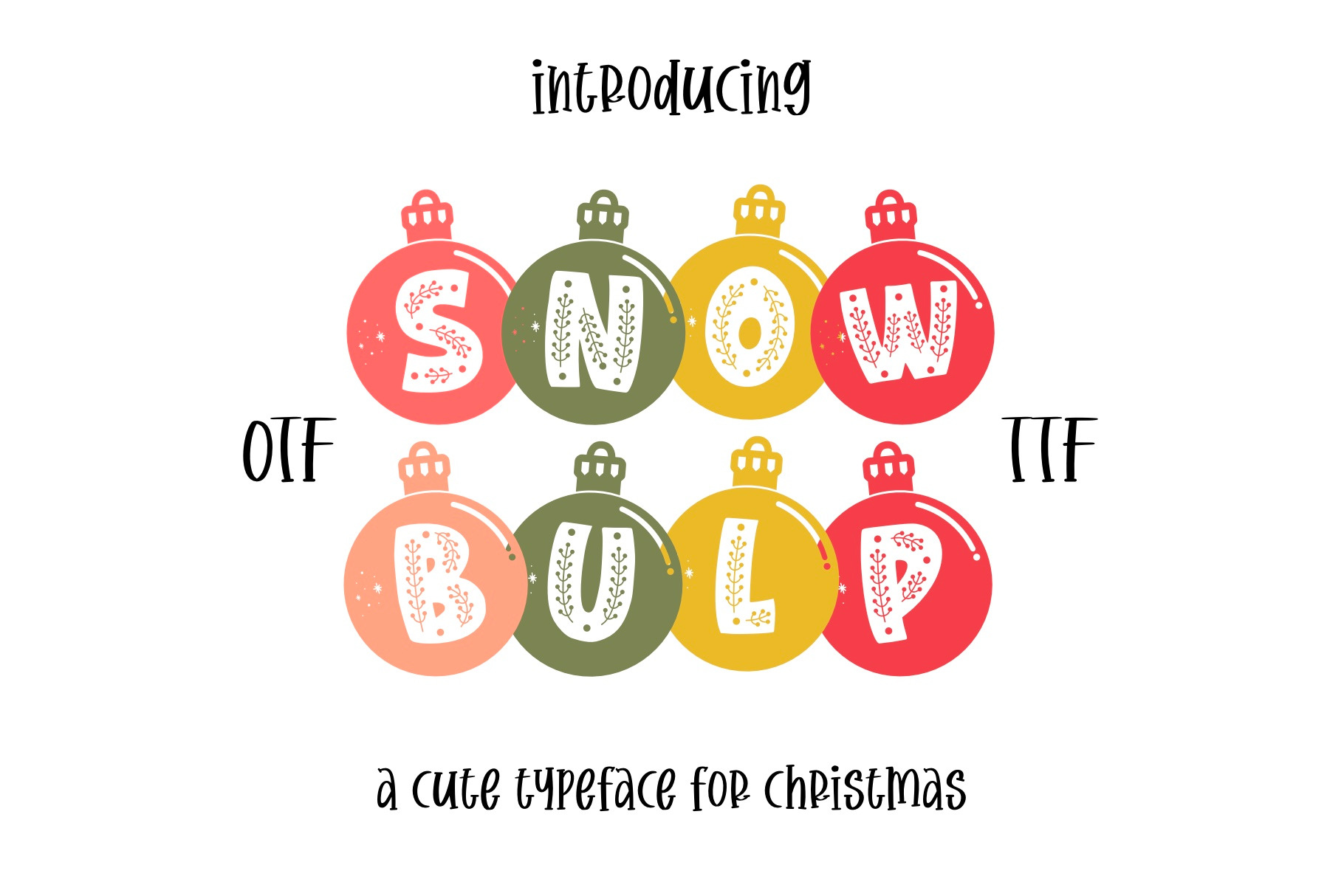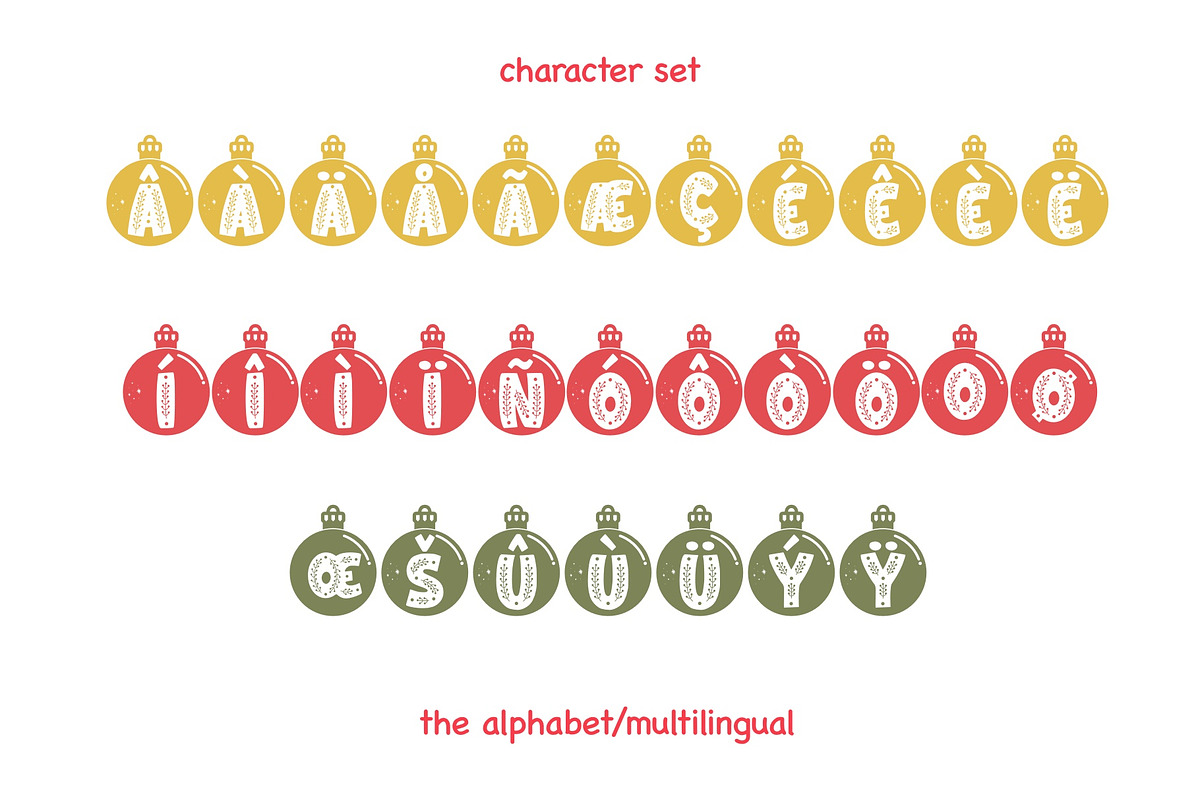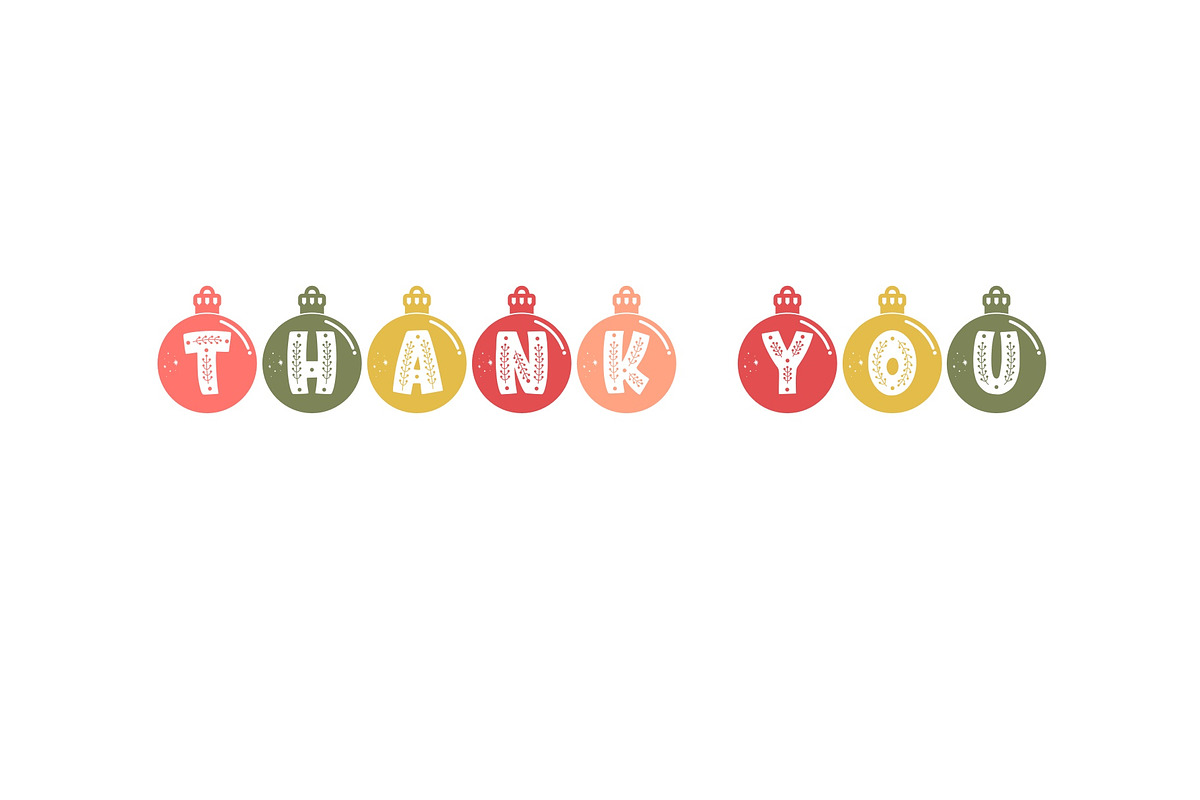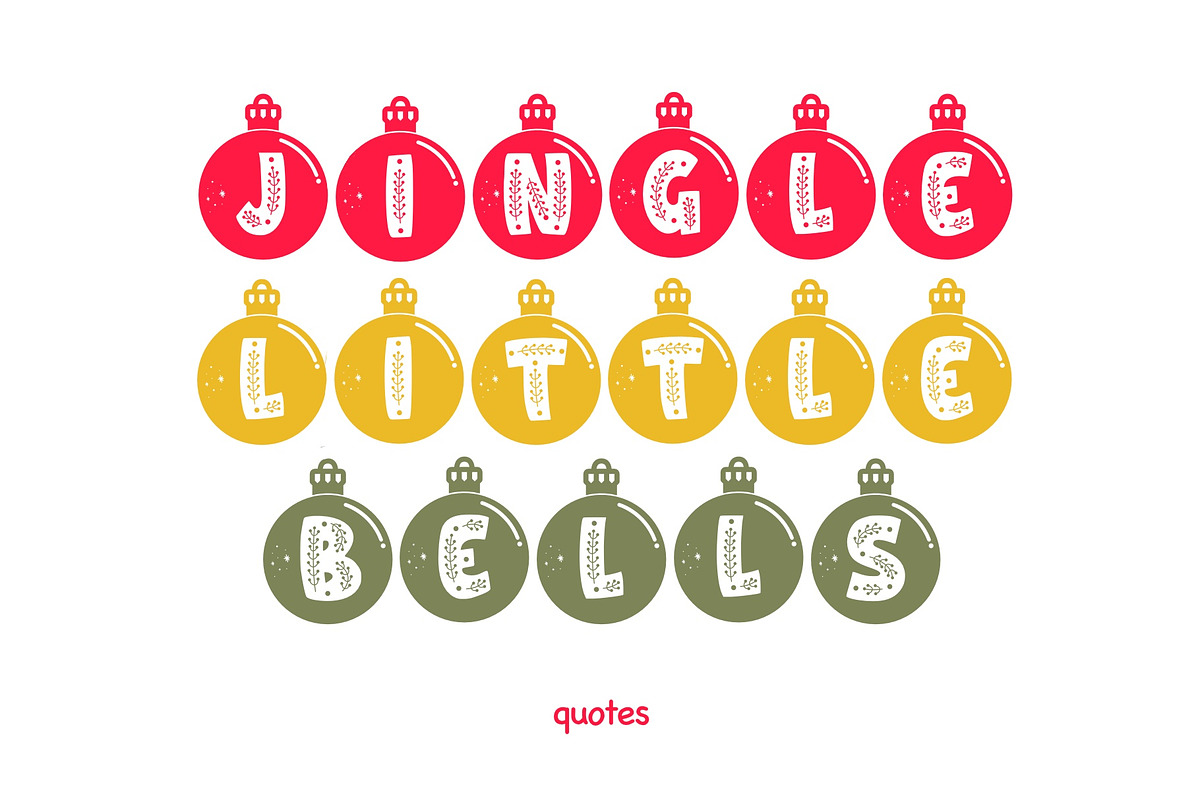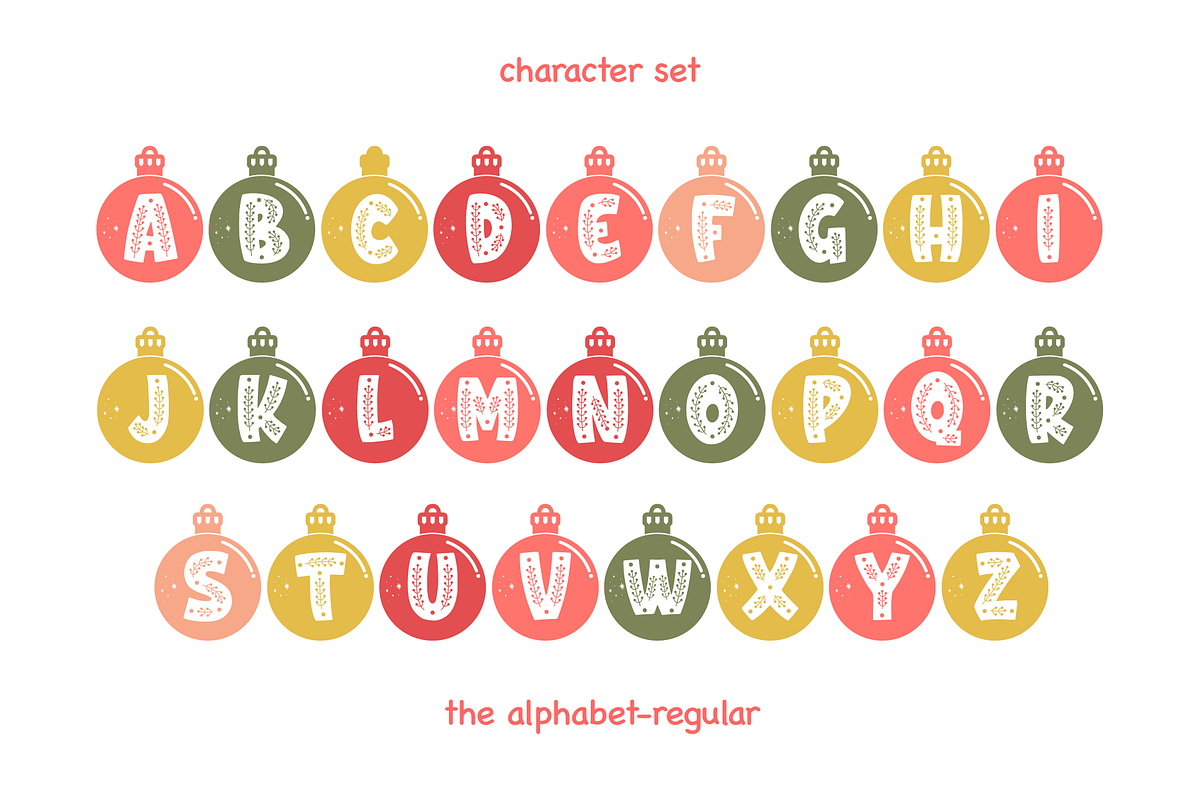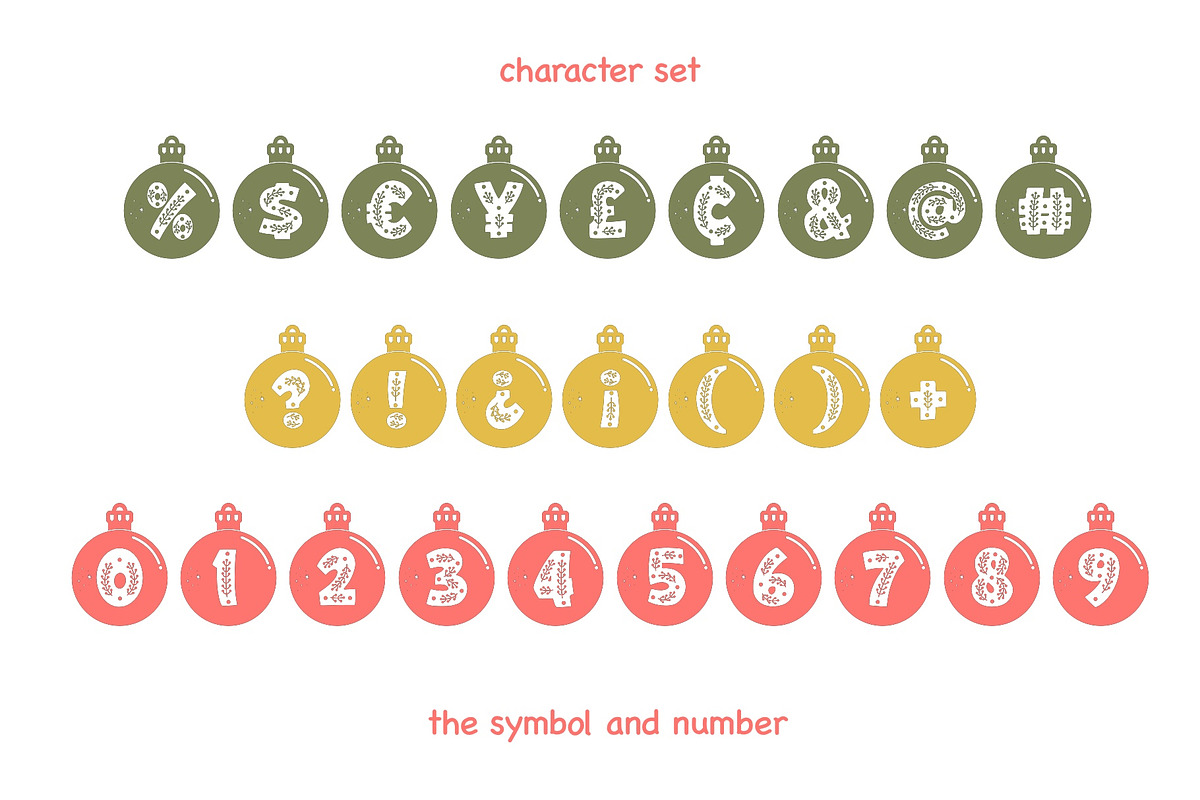
Snow Bulp Font - Symbols Font
Snow Bulp is a whimsical and festive font product that encapsulates the enchanting spirit of Christmas through its unique design featuring a collection of charming holiday symbols. This typeface available in SVG format, compatible with advanced tools such as Cricut and Glowforge, and for use in Procreate. This font is also included in Accent or Multilingual Font. Whether used in holiday greeting cards, festive banners, or seasonal design projects, Snow Bulp brings a touch of seasonal magic to typography, making it a perfect choice for spreading Christmas cheer in a visually enchanting way.